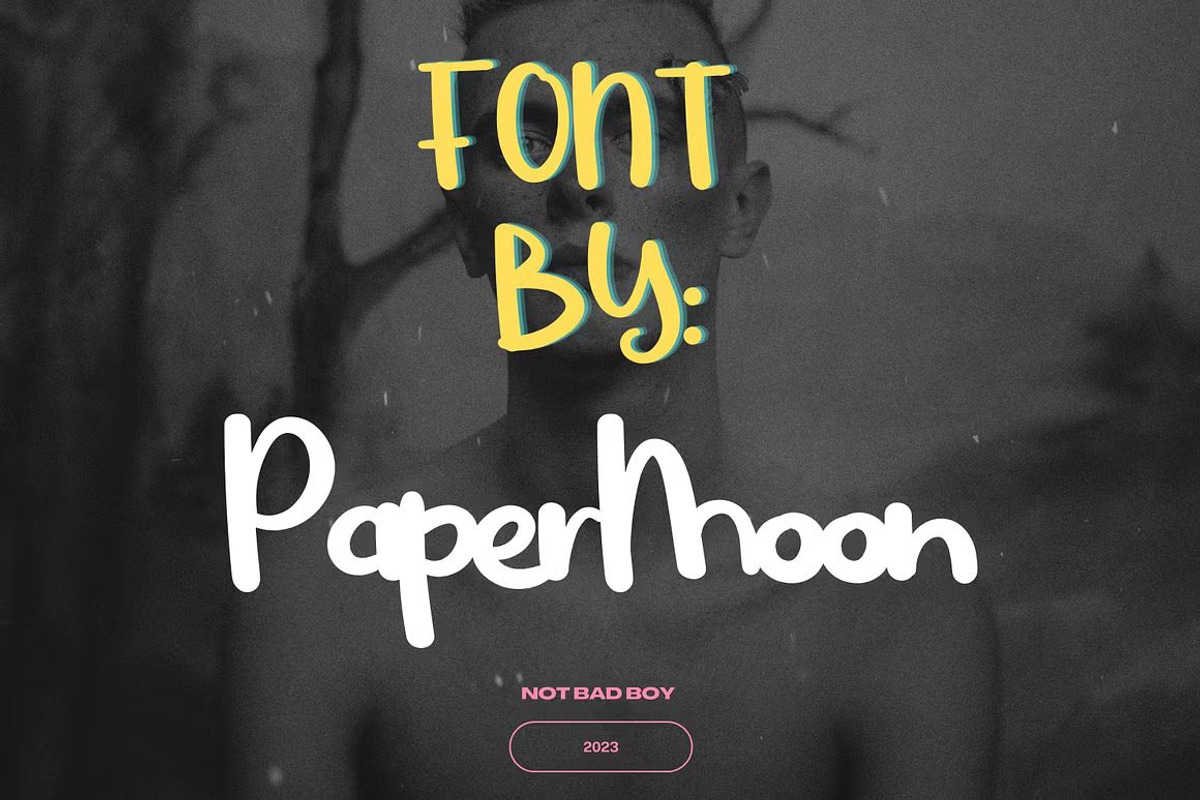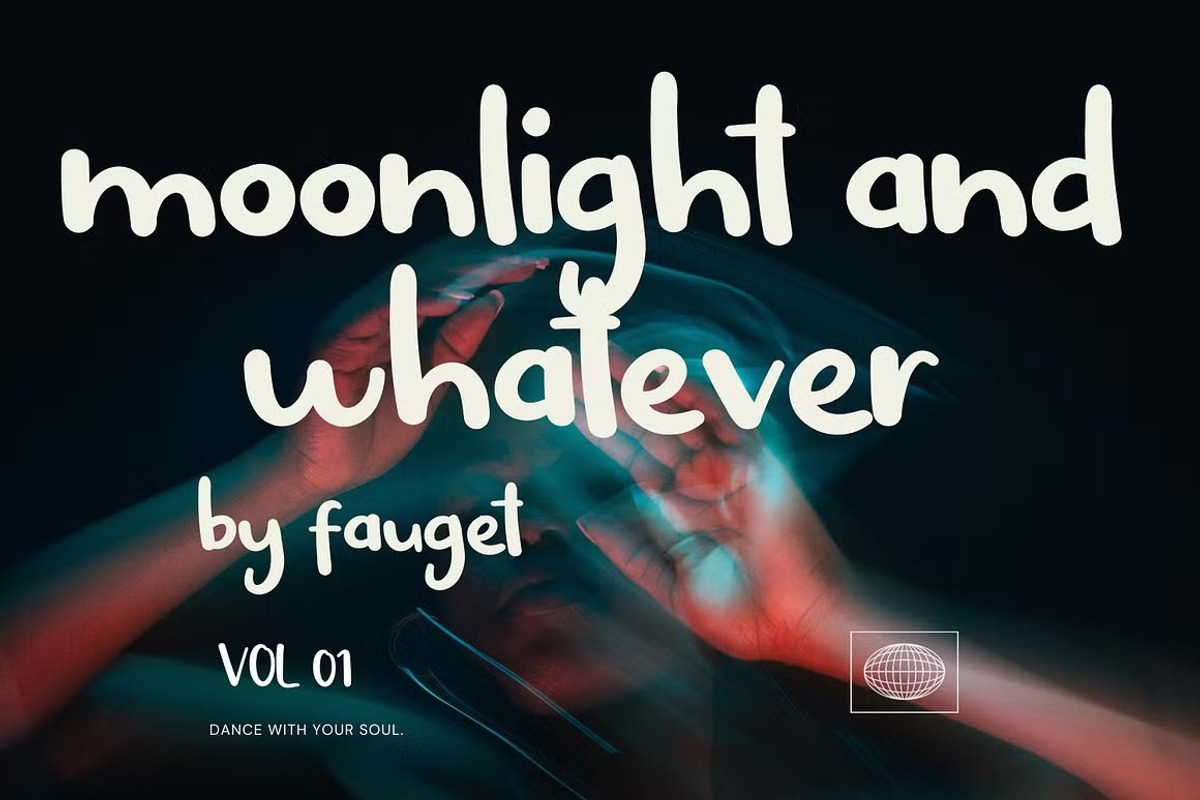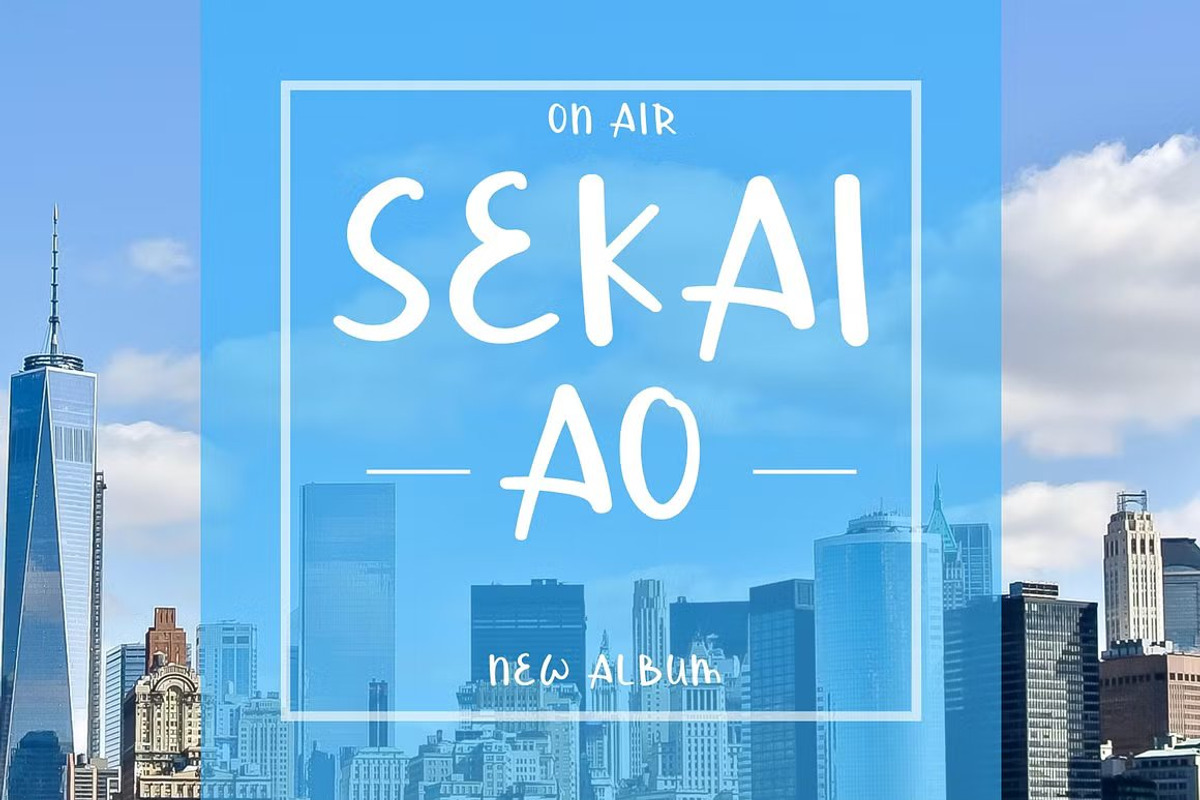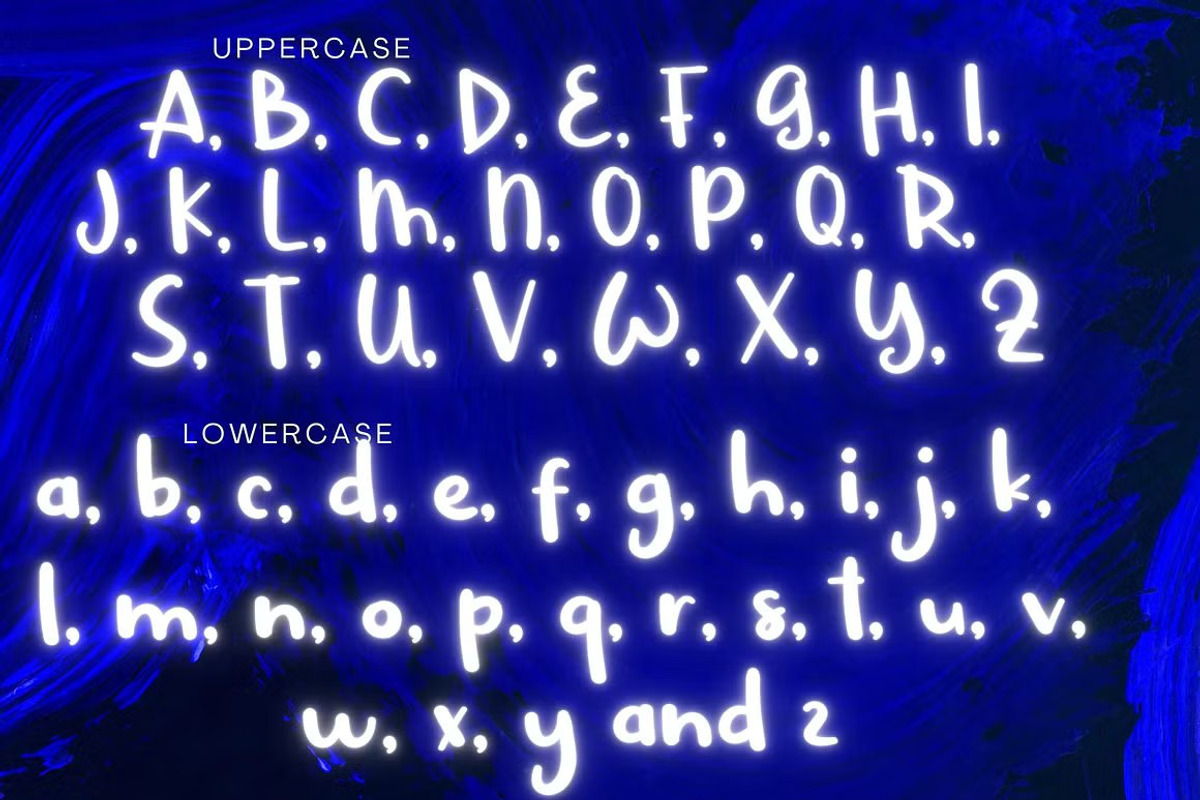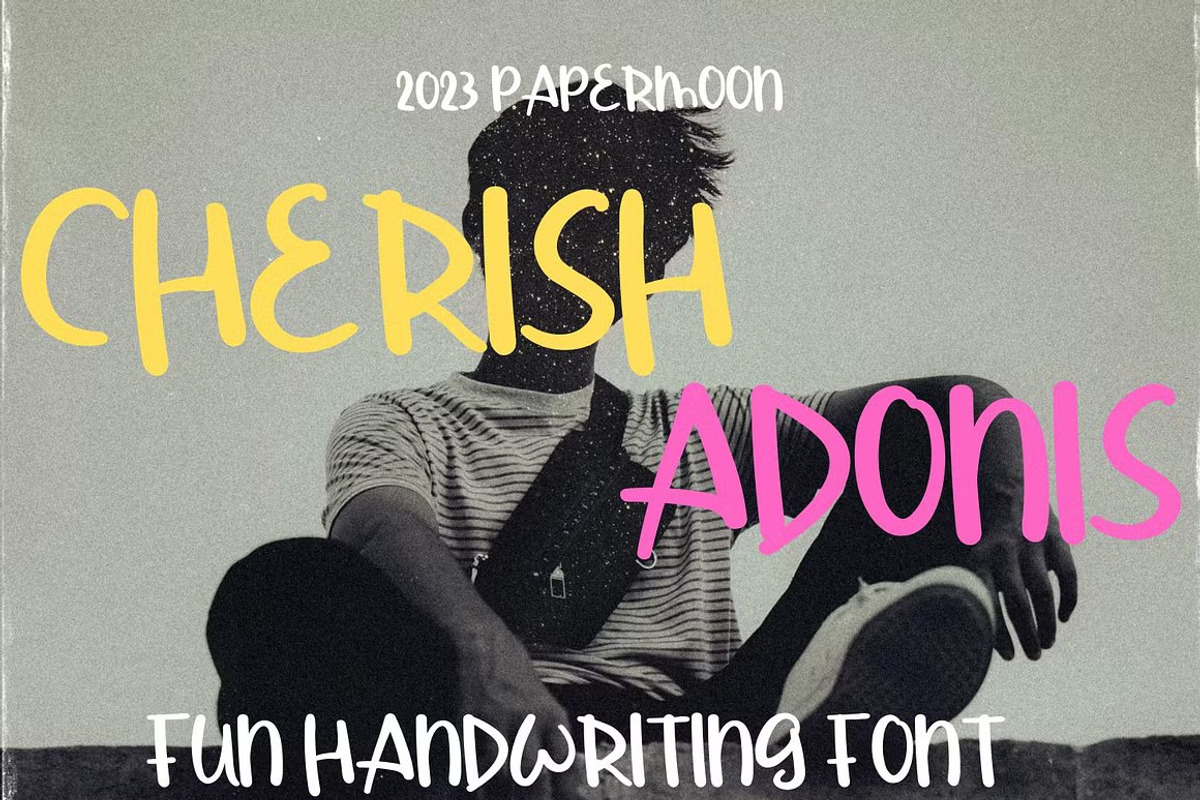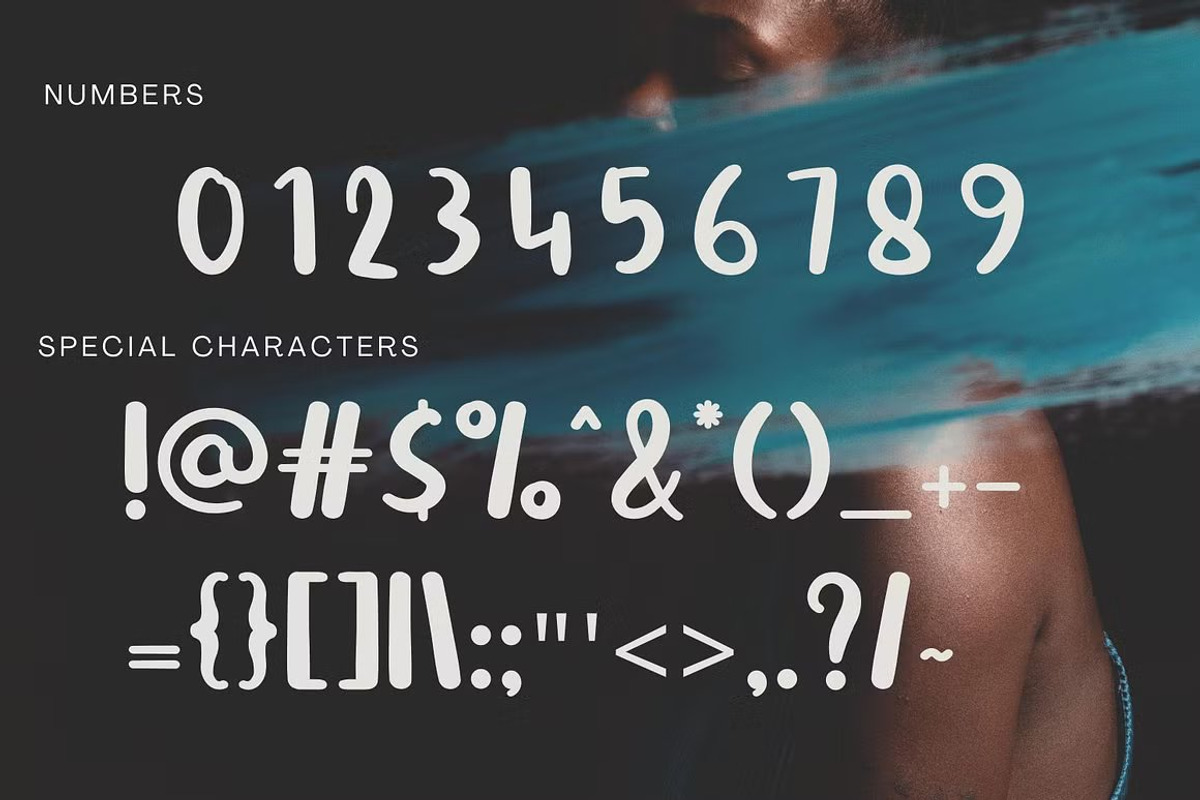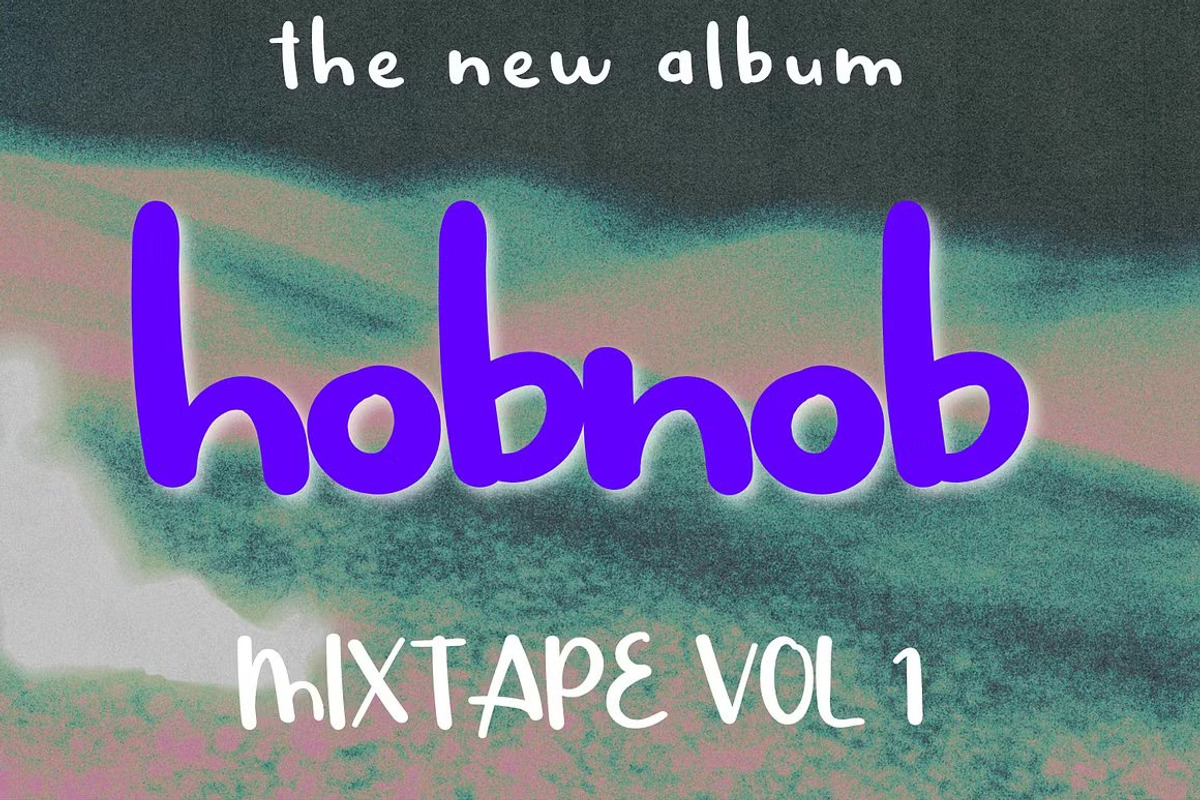
Cherish Adonis: Fun Handwriting Font
Introducing Cherish Adonis Font: A Delightful Handwritten Typeface with Brush Stroke Charm
Meet Cherish Adonis Font, a captivating handwriting style typeface that features a delightful brush stroke design. This unique font exudes a charming and playful vibe, making it the perfect choice for a variety of industries, including architecture, baking, boutiques, culinary arts, crafts, beverage branding, florists, publishing, and beyond.
Cherish Adonis Font offers a comprehensive character set, featuring:
Uppercase and Lowercase Letters for versatile typography Numbers and a wide selection of punctuation marks and symbols Ligatures and swoosh elements for added flair and creativity Every character is meticulously crafted with impeccable spacing and kerning, ensuring a polished and professional look. Cherish Adonis Font is perfect for a variety of projects (with an extended license), including blog headers, business cards, invitations, labels, product packaging, quotes, stickers, titles, and more.